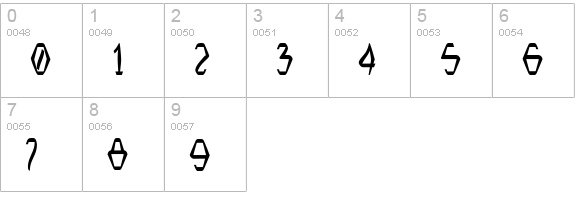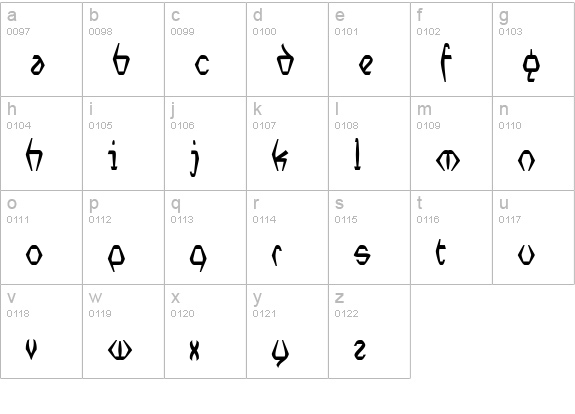
NerdishHex Bold is a strong, high-contrast variant in the NerdishHex typeface family \xE2\x80\x94 well suited to headlines, attention-grabbing titles, and strong calls-to-action.
NerdishHex Bold font is the perfect choice for those looking to add a touch of nerdy charm to their designs. This bold and eye-catching typeface is sure to make a statement with its unique hexagonal shapes and modern aesthetic. Whether you're working on a logo, poster, or website, NerdishHex Bold is sure to grab attention and stand out from the crowd. Best of all, NerdishHex Bold is available for free download at FontsMarket.com. This means you can easily access this stylish font and start using it in your projects without breaking the bank. So why wait? Elevate your designs with NerdishHex Bold today and bring a touch of nerdish charm to your work.